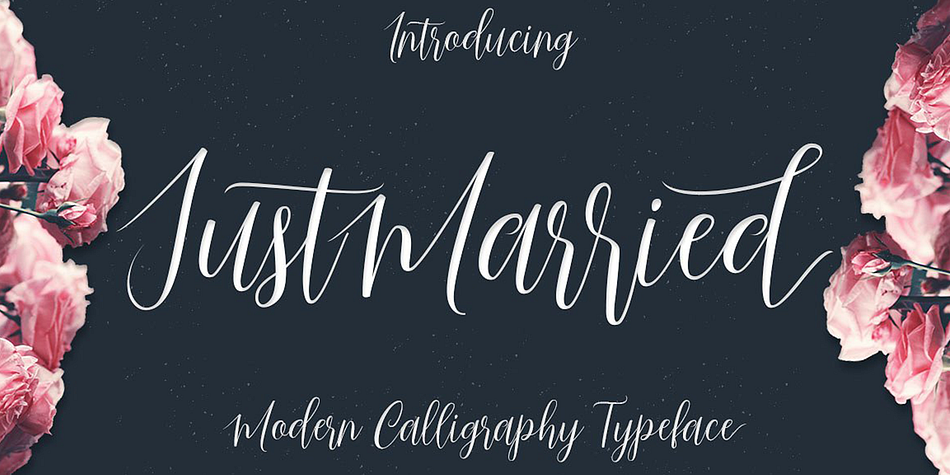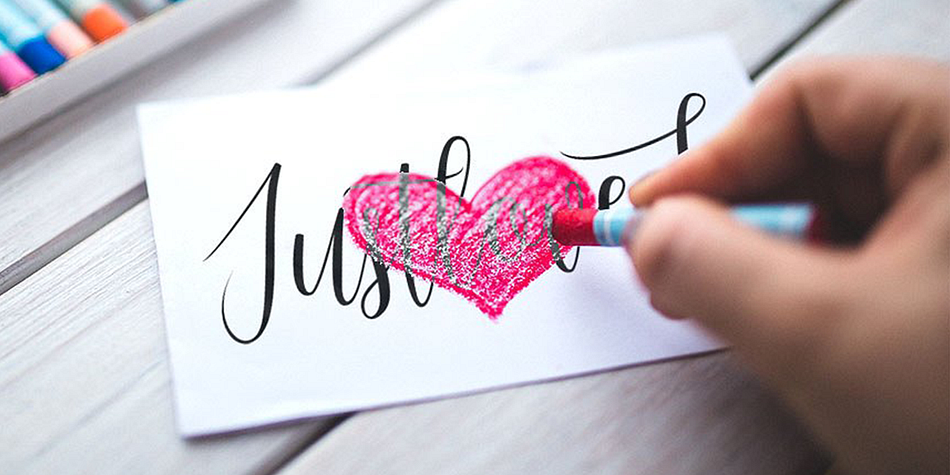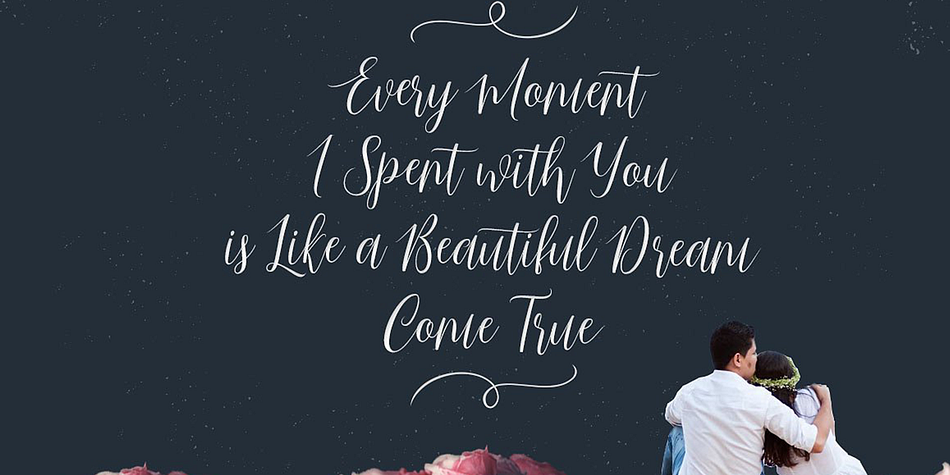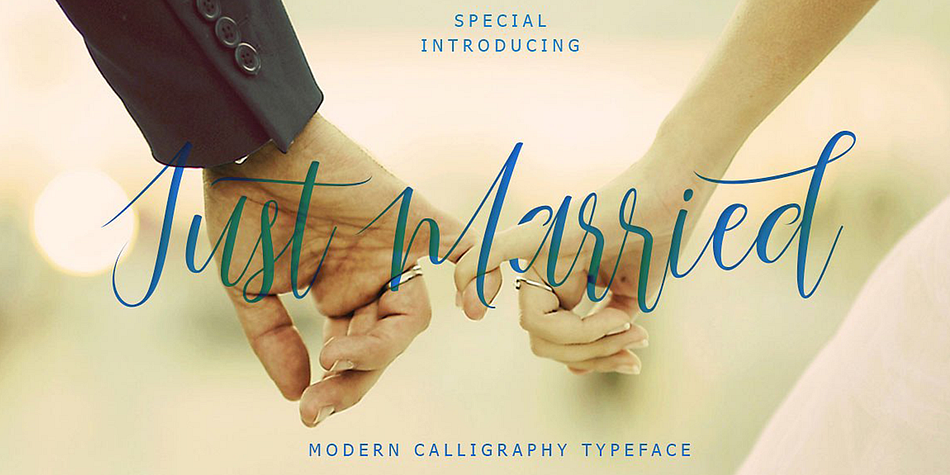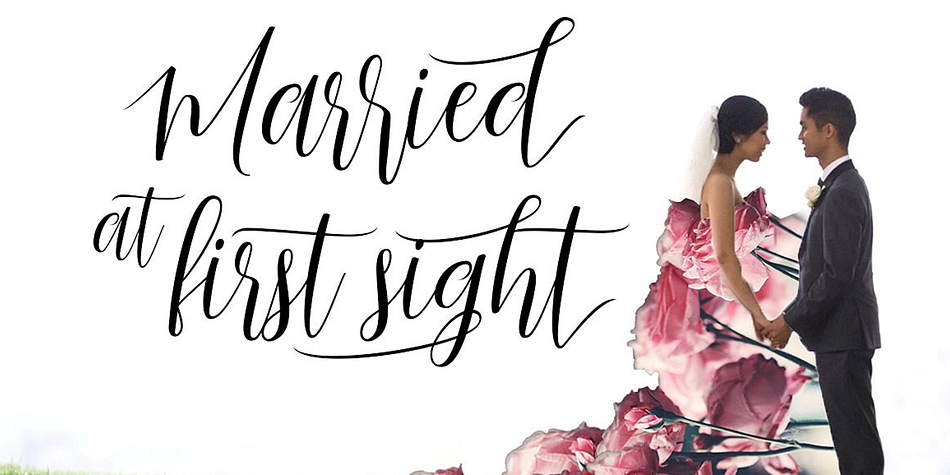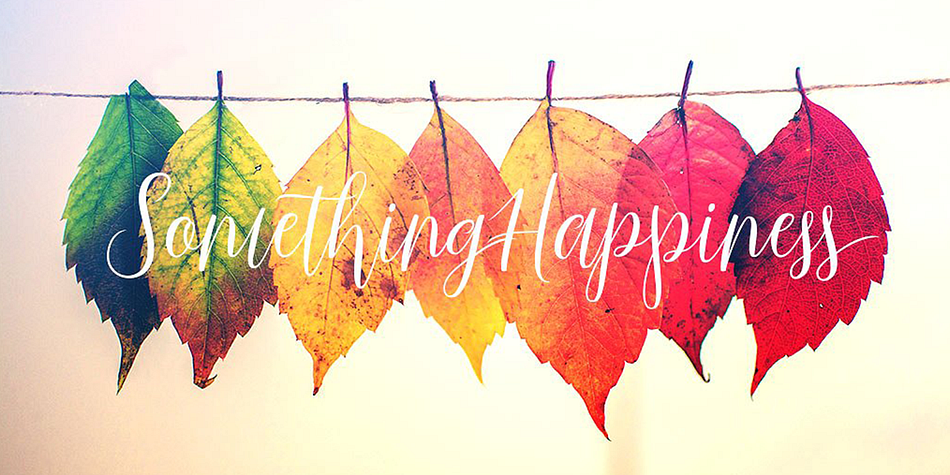
Just Married
Just Married is a modern calligraphy font family published by Gatype.
Just Married Script is a feminine font and handwritten with fun characters. Good for greeting cards, wedding invitations, quotes, posters and many other projects. ♥
The Features:
You just need to enable Contextual Alternate. Usually Adobe Photoshop and other programs enable it by default. It’s your signature unique and original.
Ligatures
Stylistics alternately
PUA (personal use area)